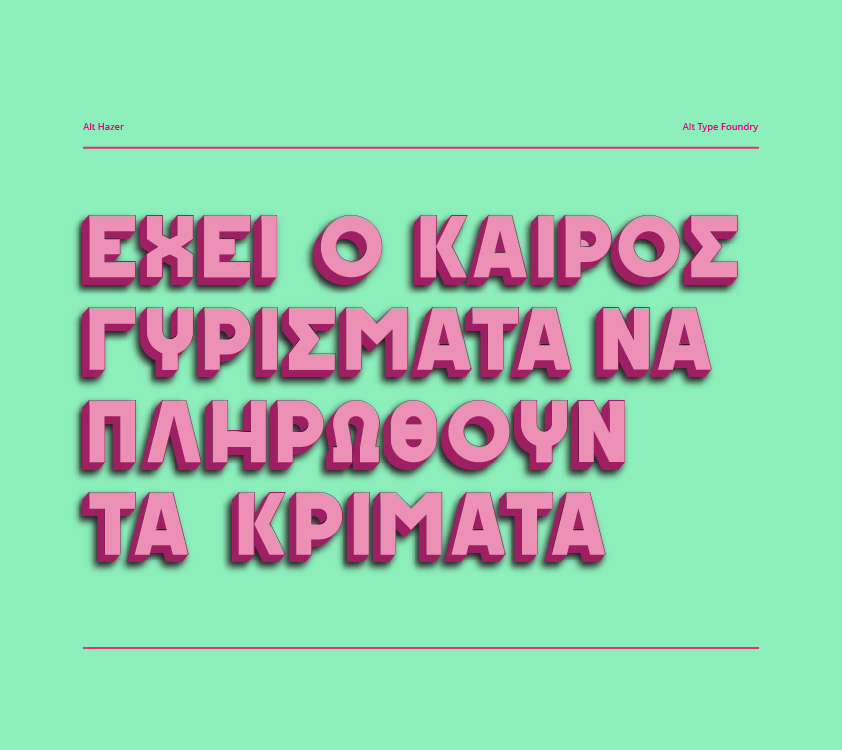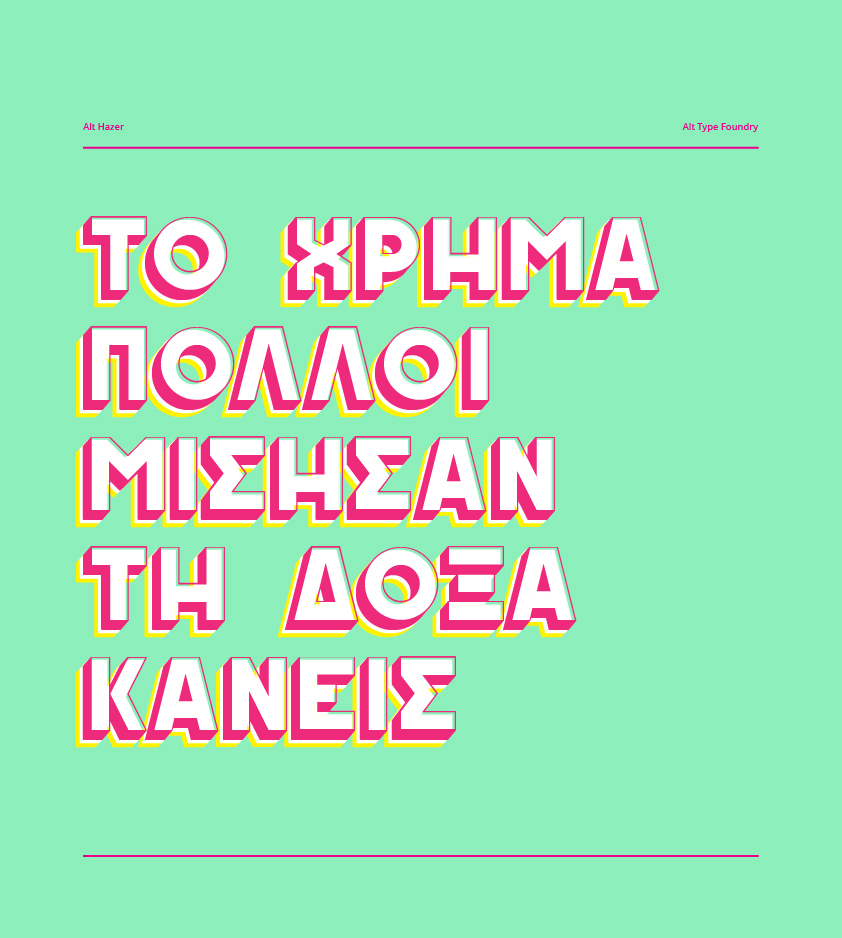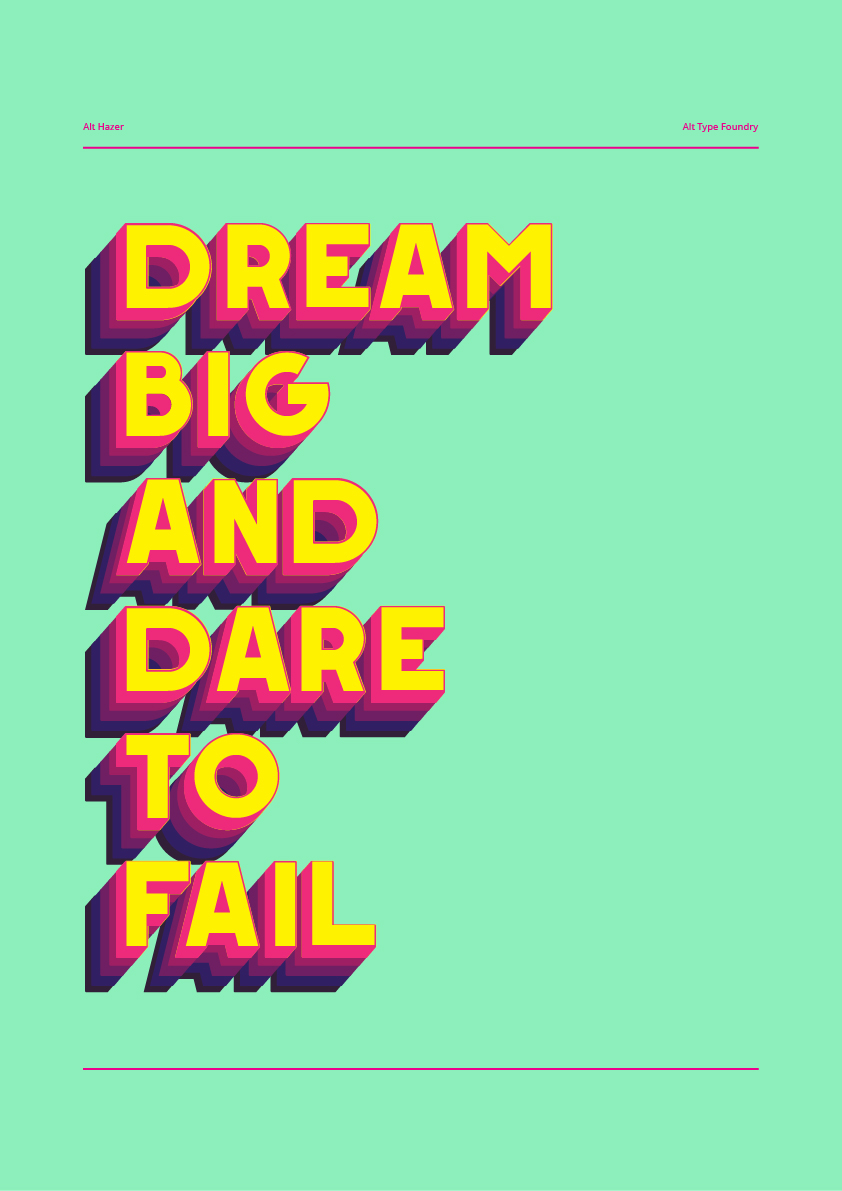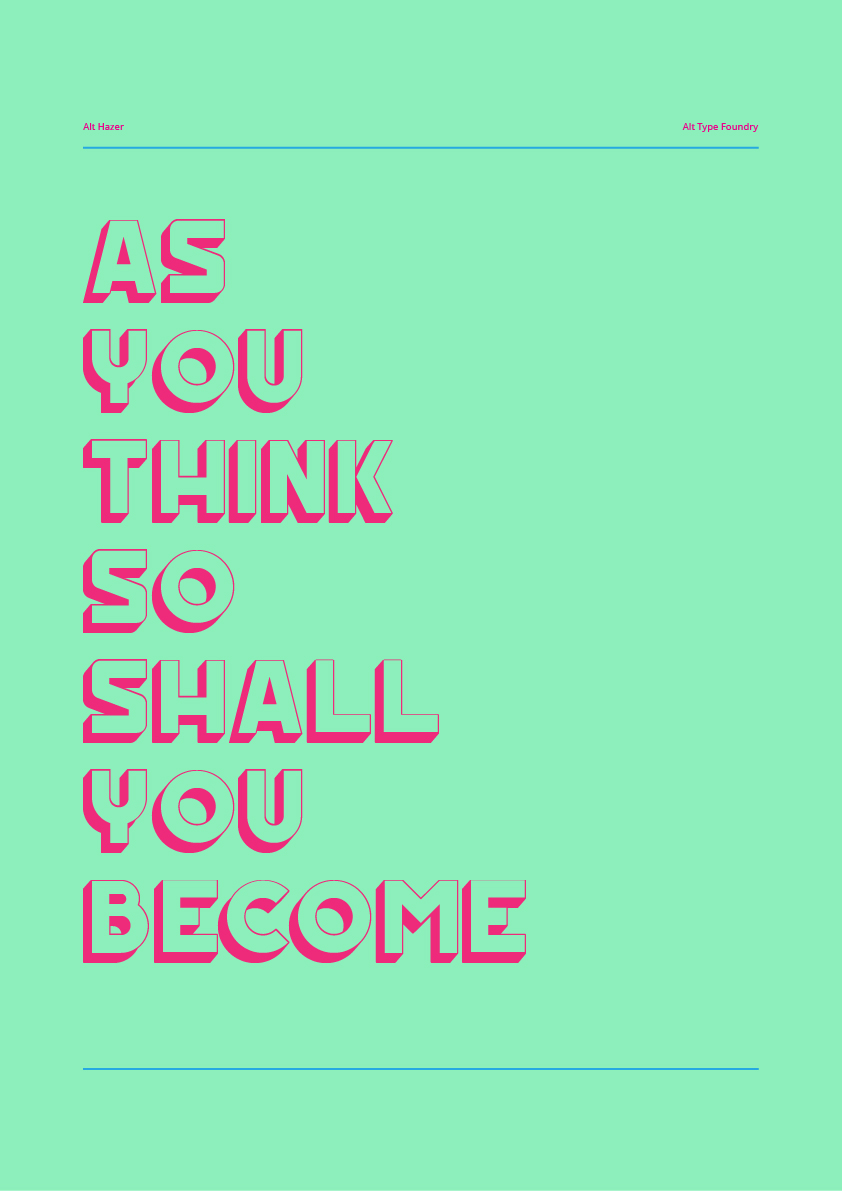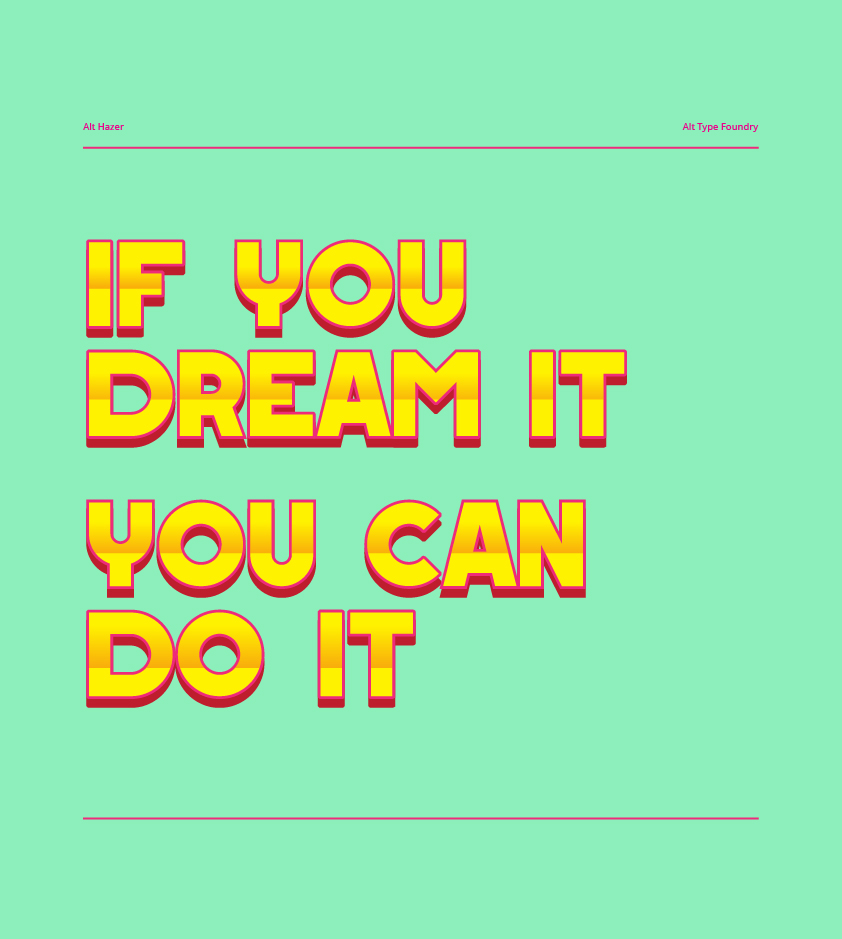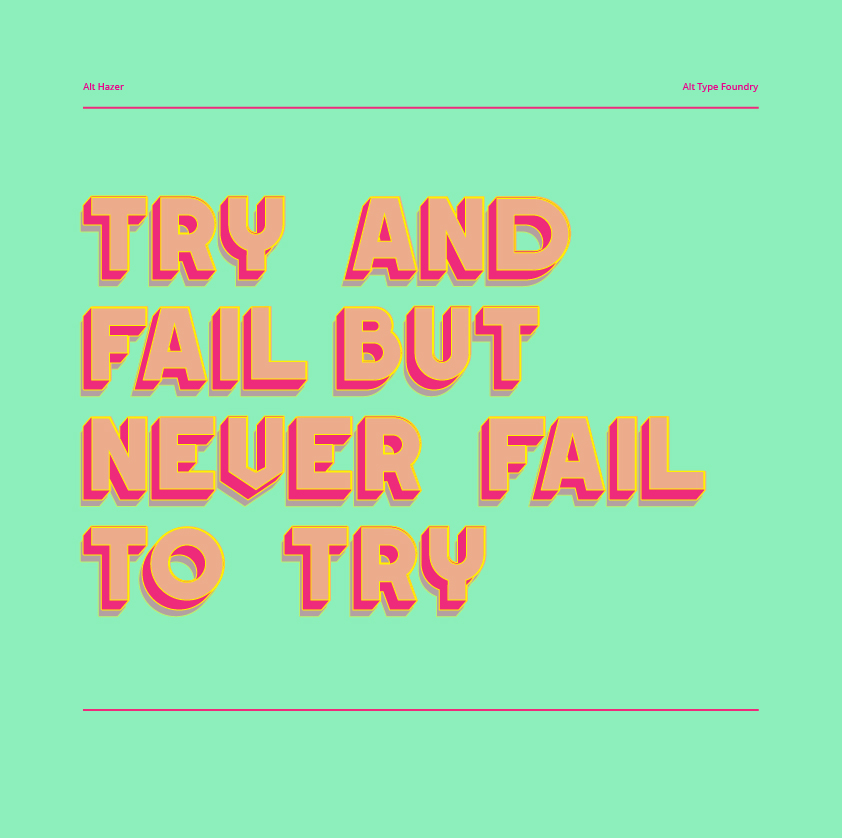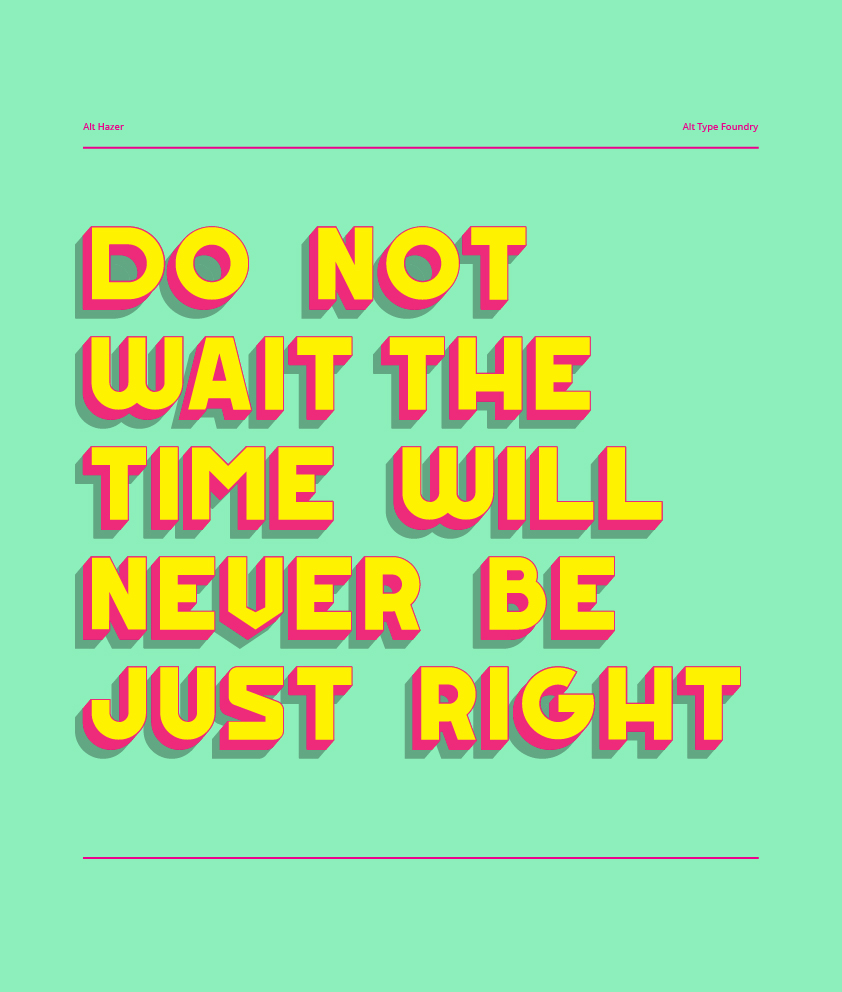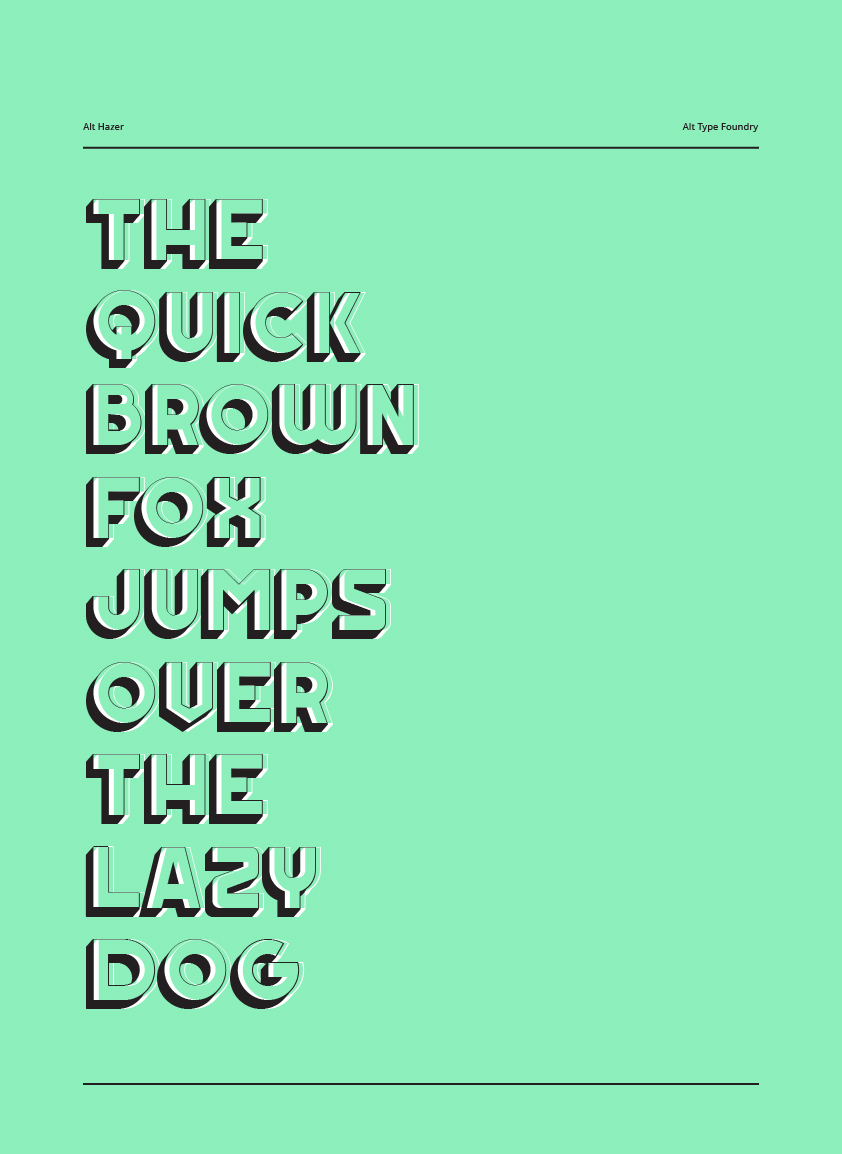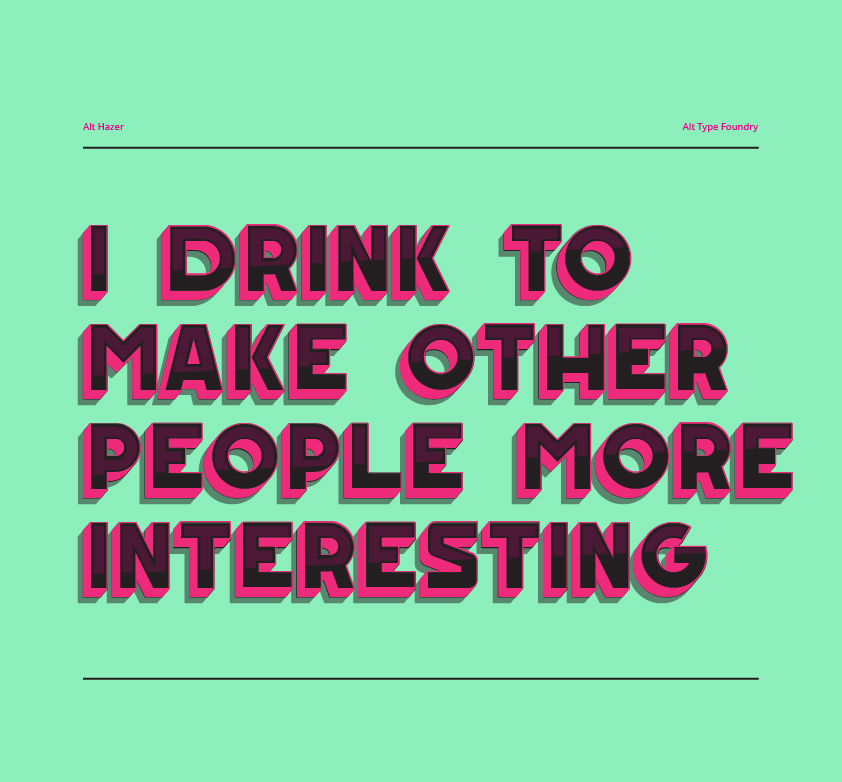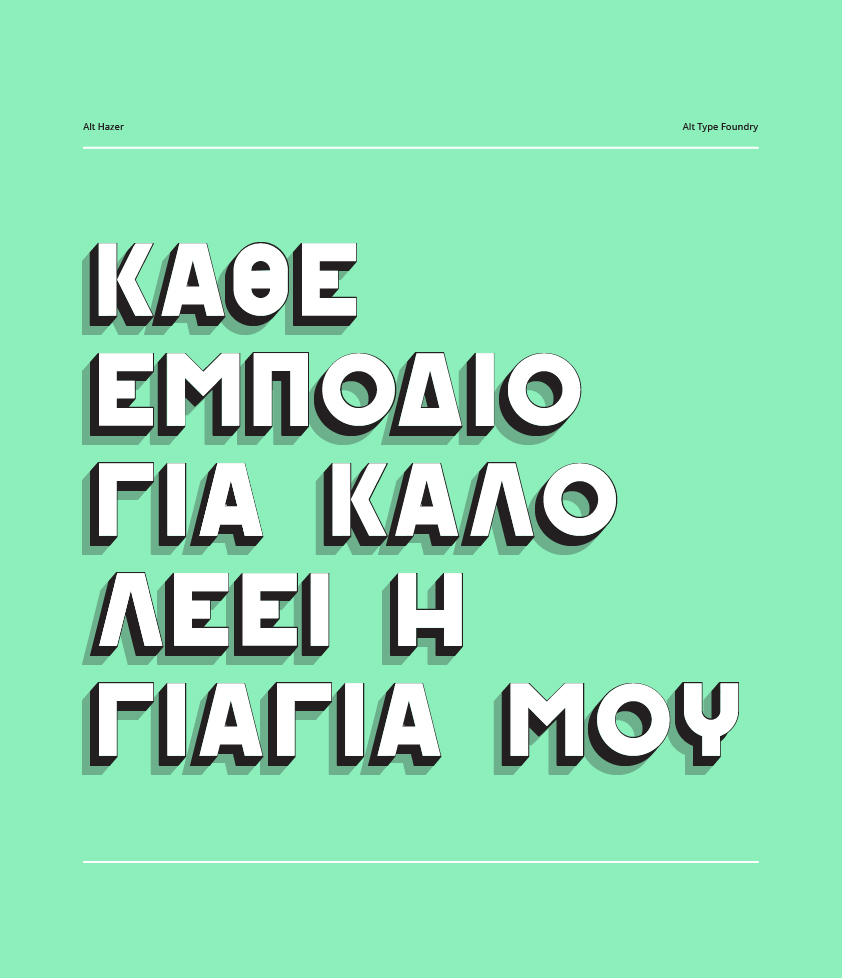
Hazer Typeface
Hazer is a decorative typeface, ideal for posters,logos, etc. Hazer is caps only, basic Latin and Greek glyphs. you can change styles with caps on and off.